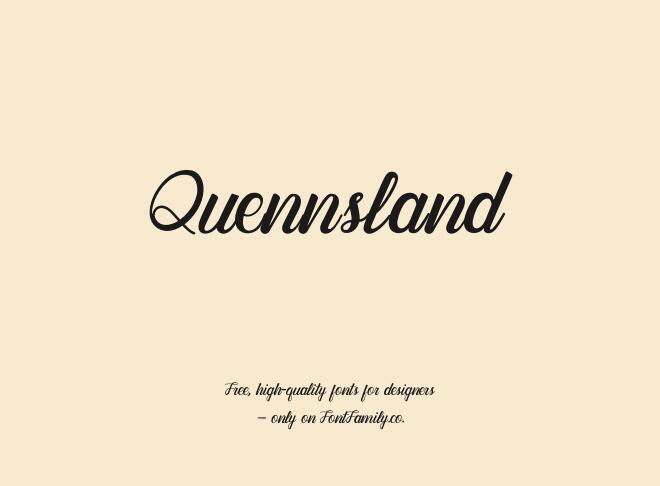
Quennsland Font
Quennsland Font is an elegant and modern handwritten typeface, perfect for adding a sophisticated touch to your designs. Released in 2018 by Type Foundry, Quennsland Font offers a unique blend of style and readability, making it an outstanding choice for a variety of design projects. It can be compared to the likes of 'Brush Script' in its elegance but adds a contemporary twist that makes it stand out. Ideal for logos, invitations, quotes, and headers, this font can bring an element of class to any design. Its free for personal use license makes it an excellent choice for designers on a budget. The Quennsland Font is a must-have in any designer's toolkit for creating visually compelling designs with a modern and elegant flair.